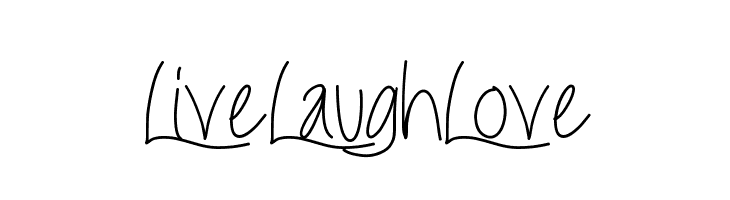
( Fonts by EyeCone )
Intricate, stitched pattern with a geometric, fabric-like design.
( Fonts by Darrell Flood )
A geometric, pixelated font with a modular and digital aesthetic.
( Fonts by Vanessa Bays - bythebutterfly.com )
A playful, casual handwritten font with expressive strokes.
A bold, decorative font with vintage flair and intricate details.
( Fonts by Creatype Studio )
A playful, hand-drawn font with exaggerated curves and a whimsical style.
设计师偏爱 Stitches Regular, Super Skinny Pixel Bricks, LiveLaughLove, Borlogs and Serifonwide Italic,因为其造型干净、适用范围广—— 从品牌识别到落地页、海报都能胜任。